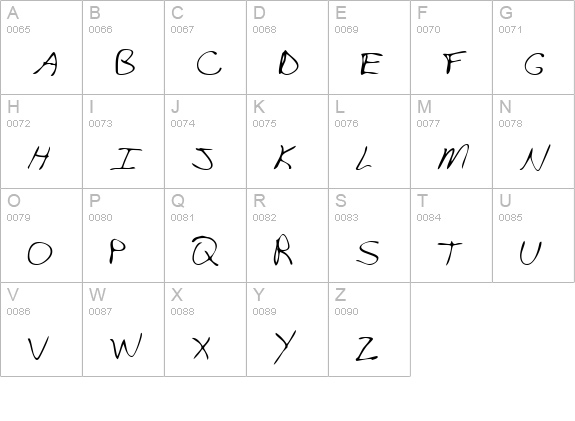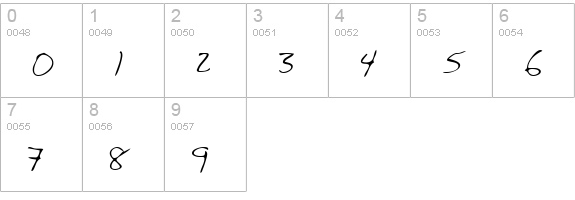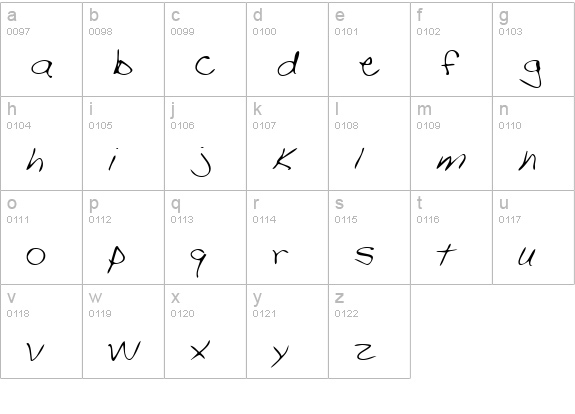
TracysHand Regular Font Details
TracysHand Regular is the standard, neutral variant in the TracysHand typeface family \xE2\x80\x94 well suited to general body text, paragraphs, and standard typographic work.
TracysHand Regular font is a charming and elegant typeface that effortlessly captures the essence of handwritten script. Its fluid strokes and delicate curves create a sense of graceful movement, making it ideal for projects that require a touch of sophistication and personality. With TracysHand Regular font, every letter feels like a unique piece of art, carefully crafted by a skilled calligrapher. The natural flow of the characters brings a sense of authenticity, adding a personal touch to any design. Whether you're creating invitations, branding materials, or simply looking to add a touch of elegance to your projects, this font is a perfect choice. What sets TracysHand Regular font apart is that it is freely available to download at FontsMarket.com. This means that you can easily access and use this beautiful typeface without any restrictions. The availability of this font for free allows designers, entrepreneurs, and enthusiasts alike to enhance their creations with a touch of elegance, without breaking the bank. The versatility of TracysHand Regular font is another reason why it has become a favorite among designers. It effortlessly adapts to various design styles, from classic and timeless to modern and contemporary. Its legibility ensures that your message is conveyed with clarity, while its unique charm adds a touch of sophistication. So, whether you're working on a wedding invitation, a logo design, or a branding project, TracysHand Regular font is the perfect choice. Its free availability at FontsMarket.com makes it even more accessible, allowing you to elevate your designs without any cost. Download TracysHand Regular font today and let its elegance and charm transform your projects into works of art.